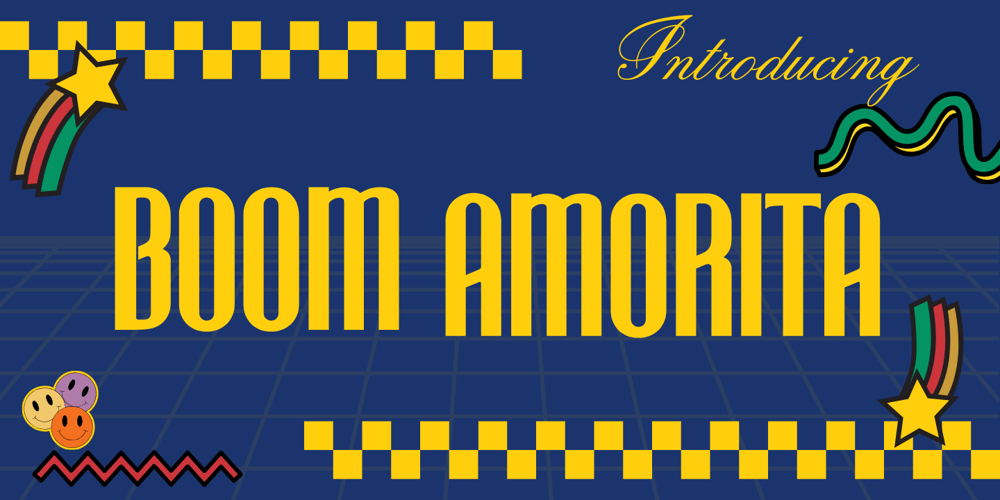
Boom Amorita Font Family was designed by Dian Haniffan Hadi and published by Beary. Boom Amorita contains 1 styles and family package options. Embrace the power of ‘Boom Amorita’ to transform your designs into captivating visual stories. Whether you’re crafting logos, posters, invitations, or digital content, this font effortlessly blends modern aesthetics with timeless elegance. With ‘Boom Amorita’ at your fingertips, every project becomes an opportunity to create something extraordinary, reflecting the essence of your creativity.